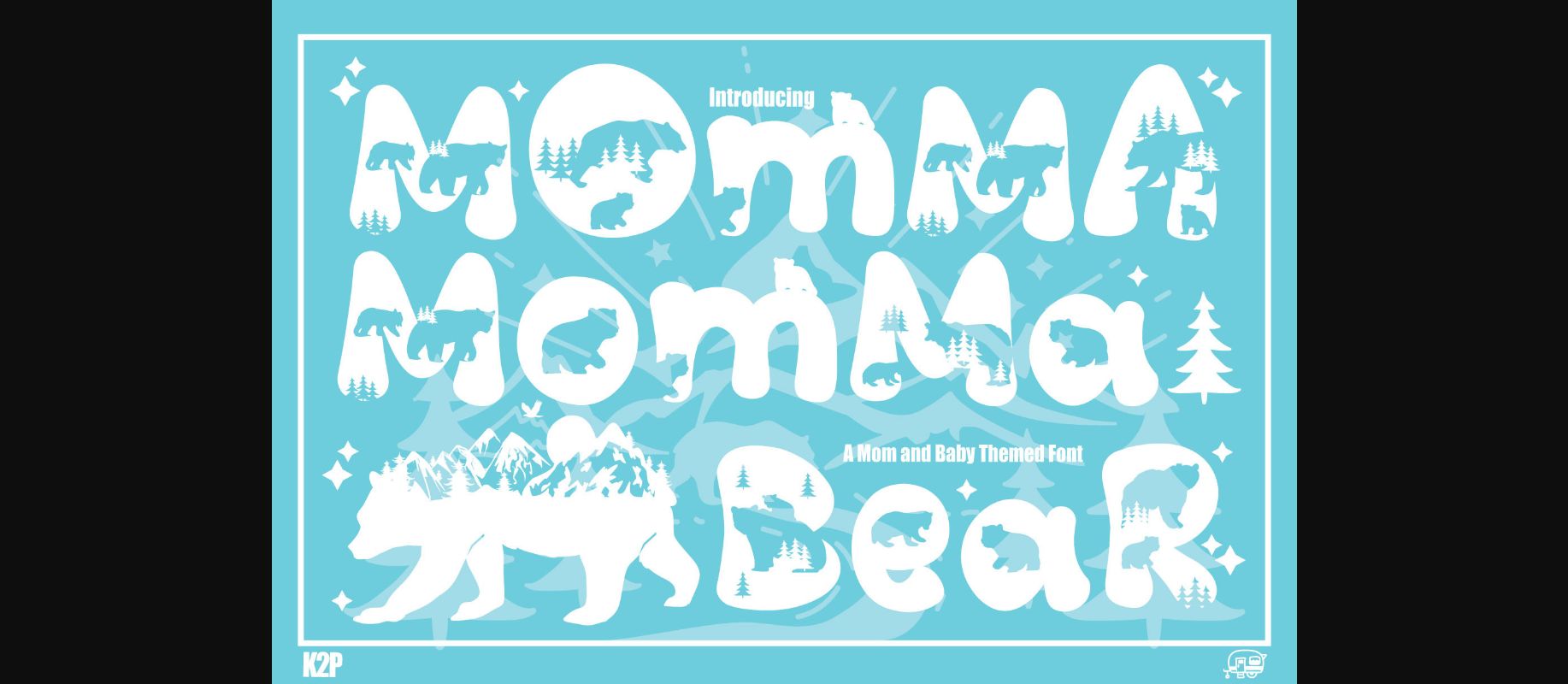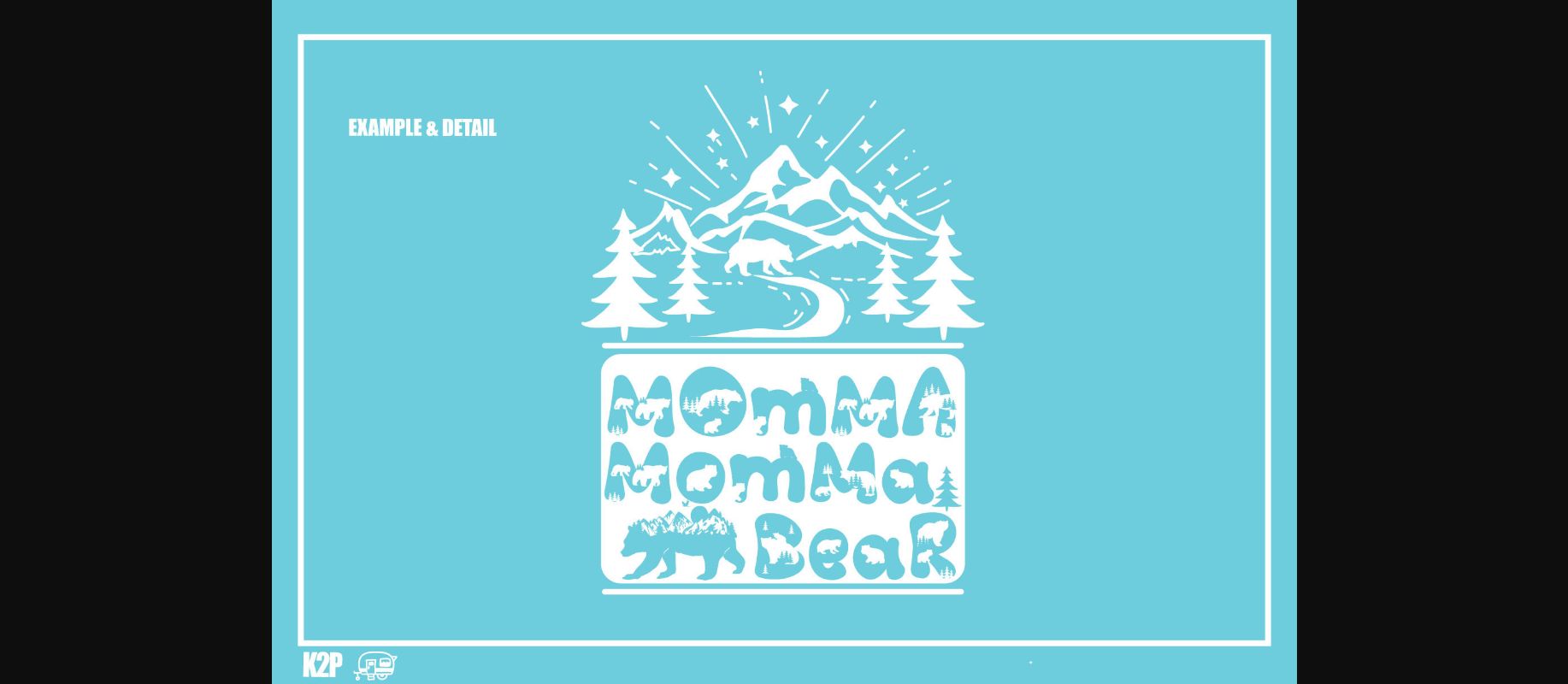
About Mama Bear Font
Mama Bear is a fun, original and assertive decorative font. It is perfect for various design ideas related to fishing, camping, traveling, and more. Have fun with this beautiful font, and explore its endless variations!